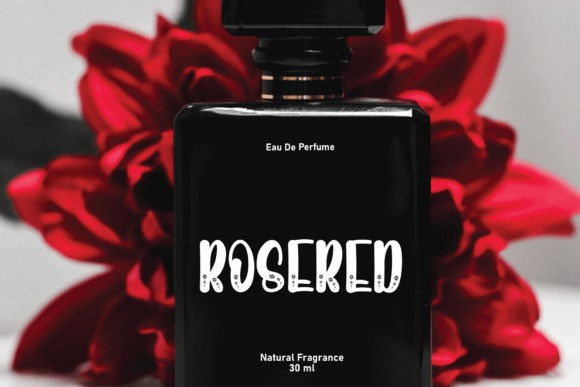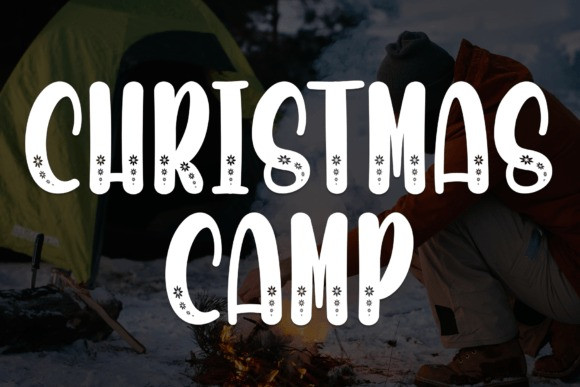
Christmas Camp Font
Christmas Camp Font is a cute handwritten font embellished with lovely snowflakes. Its festive look will be of great help when creating your winter designs.